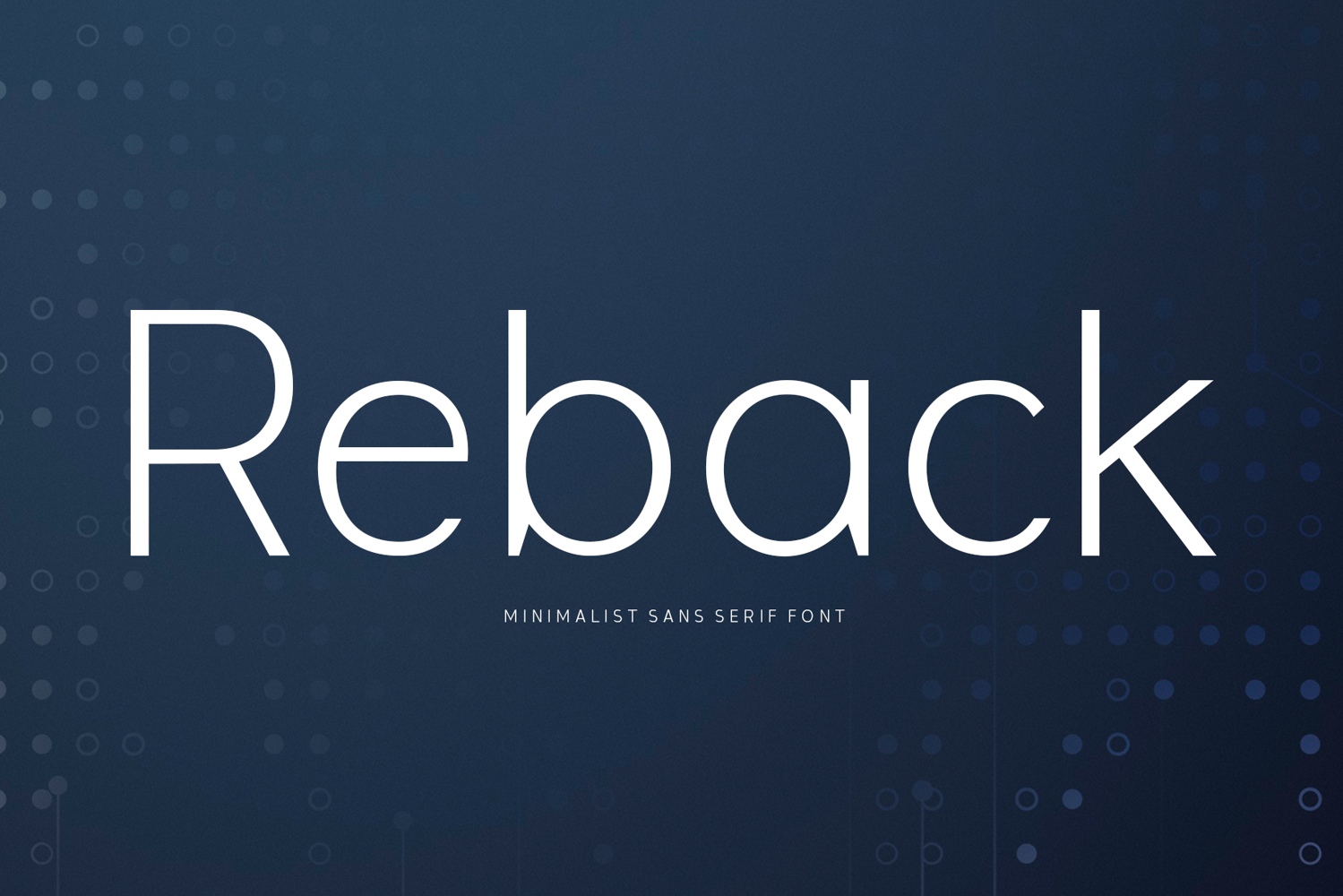
Reback
Reback is a modern sans serif font that combines visual power with an elegant minimalist touch.
This typeface comes in two styles: upright and italic.
Reback is a perfect typeface for graphic design, web, print, and any display use. This typeface can be a perfect choice for logo/logotype design, branding, marketing graphics, banners, posters, signage, corporate identities, and editorial design.